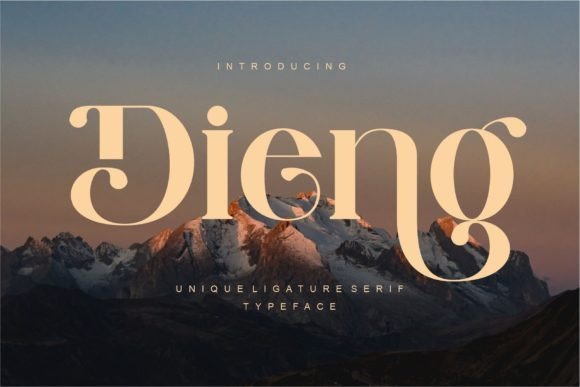
Introduction to Dieng Font
Dieng is a unique and classy serif typeface.
It is both modern and nostalgic and works great for logos, magazine, social media, web designs and more .